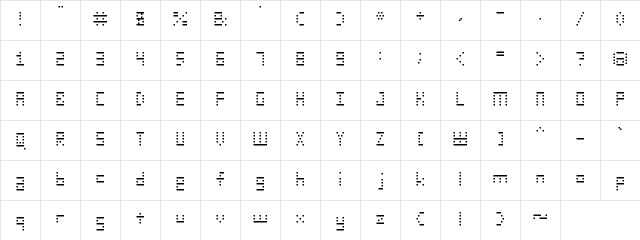
SMdot12x is rooted in pixel-grid construction, making it a natural fit for game UI, retro computing aesthetics, and digital nostalgia projects.
Pro Tip: Use SMdot12x at sizes that align with its pixel grid for the sharpest rendering - scaling to non-integer multiples can introduce unwanted blur.